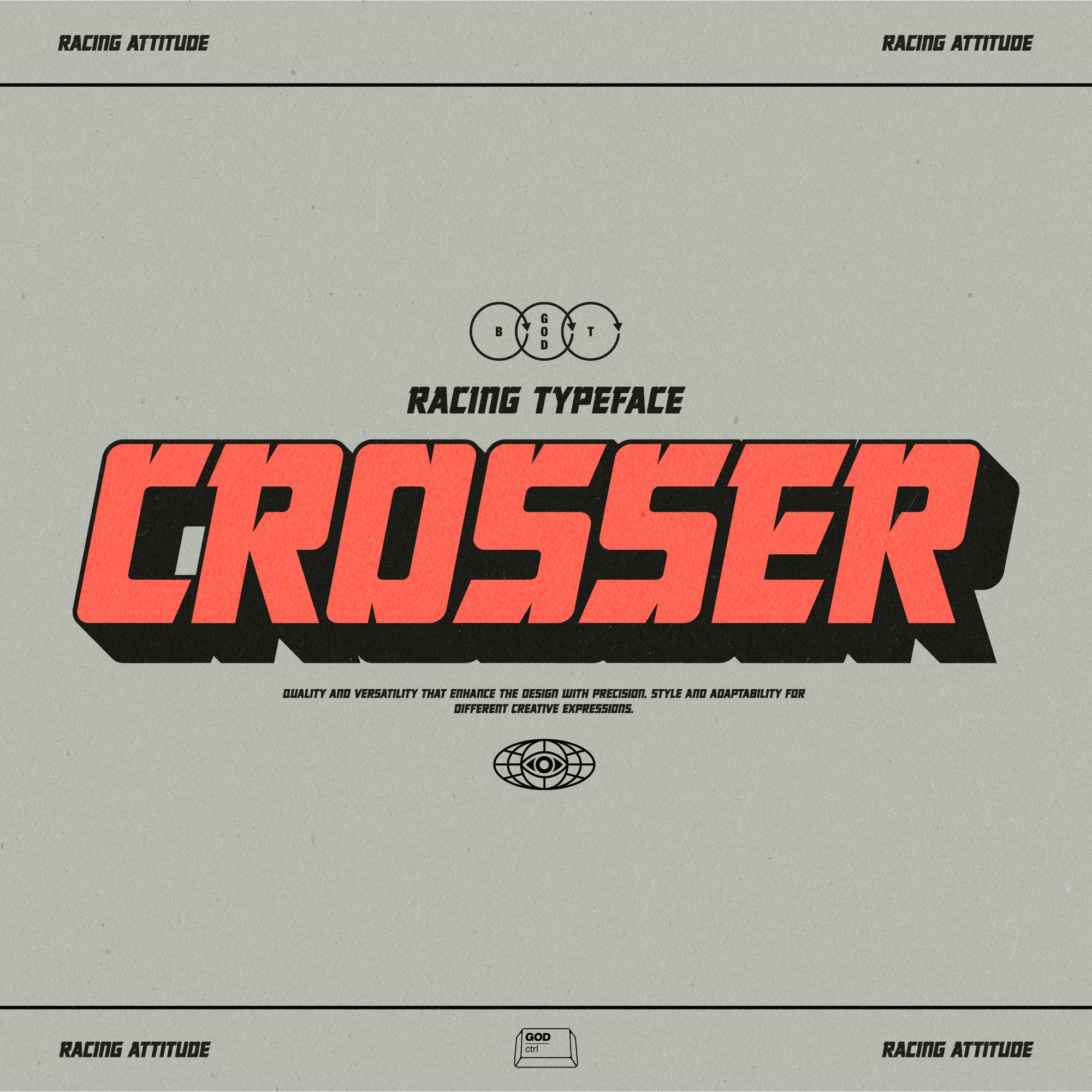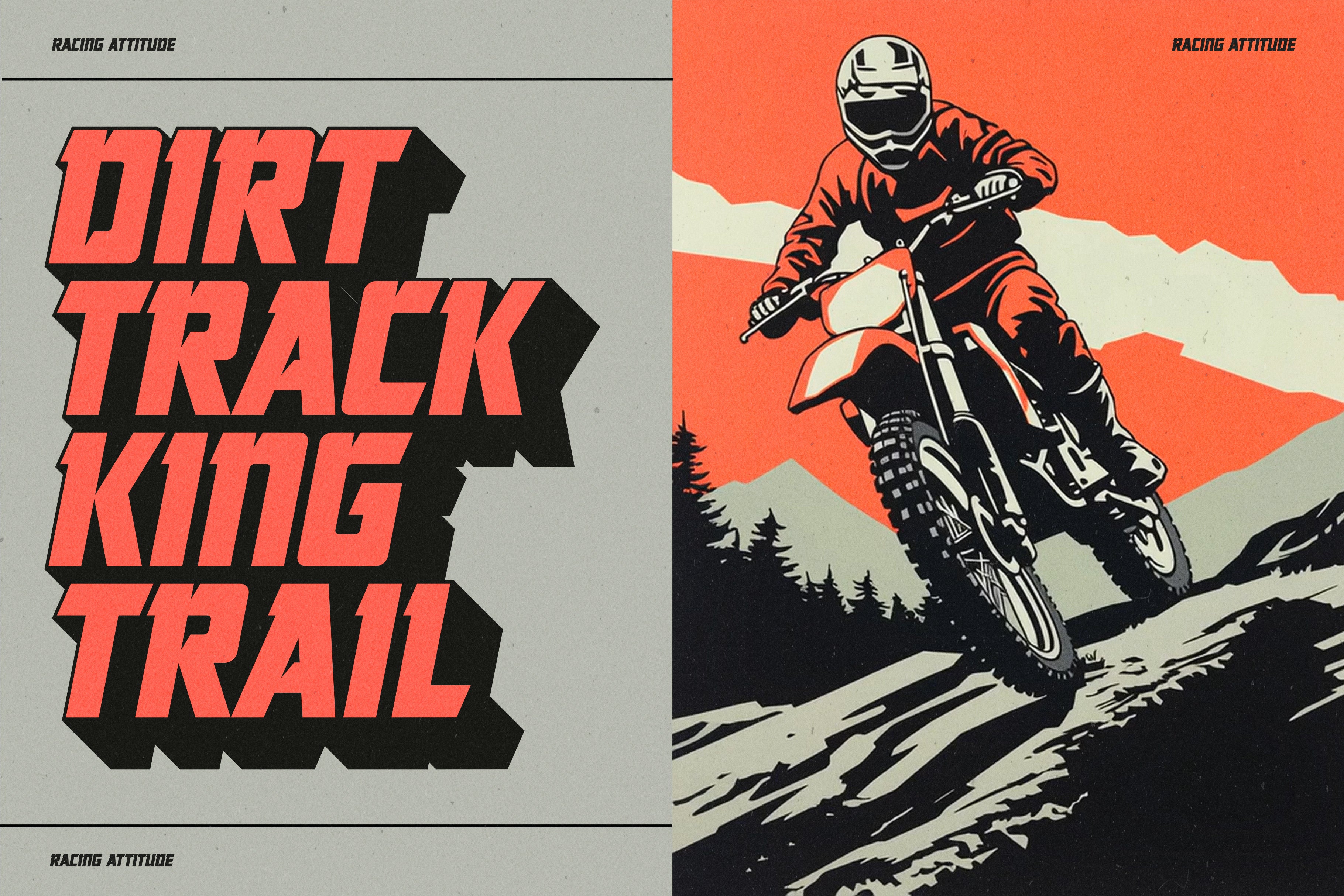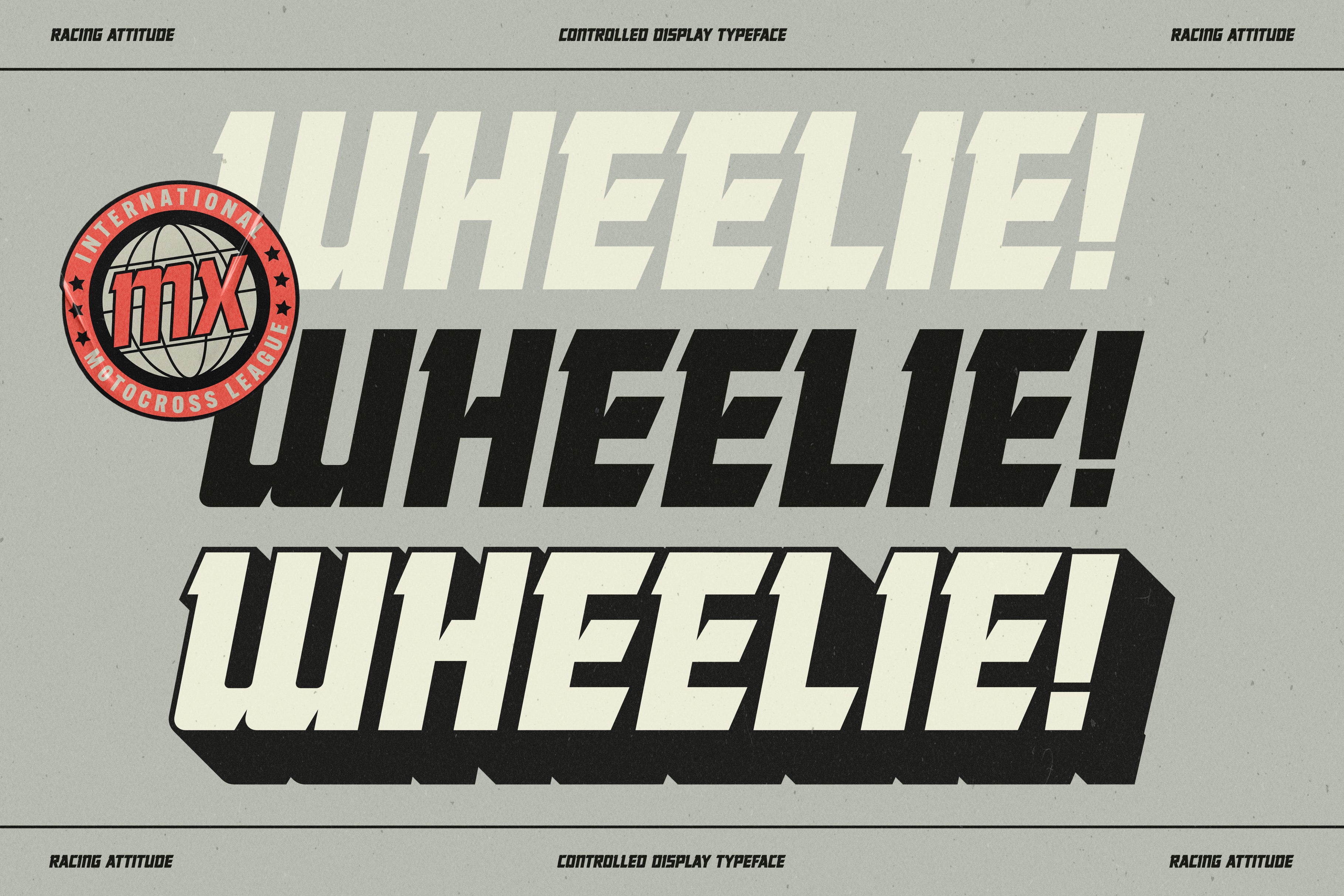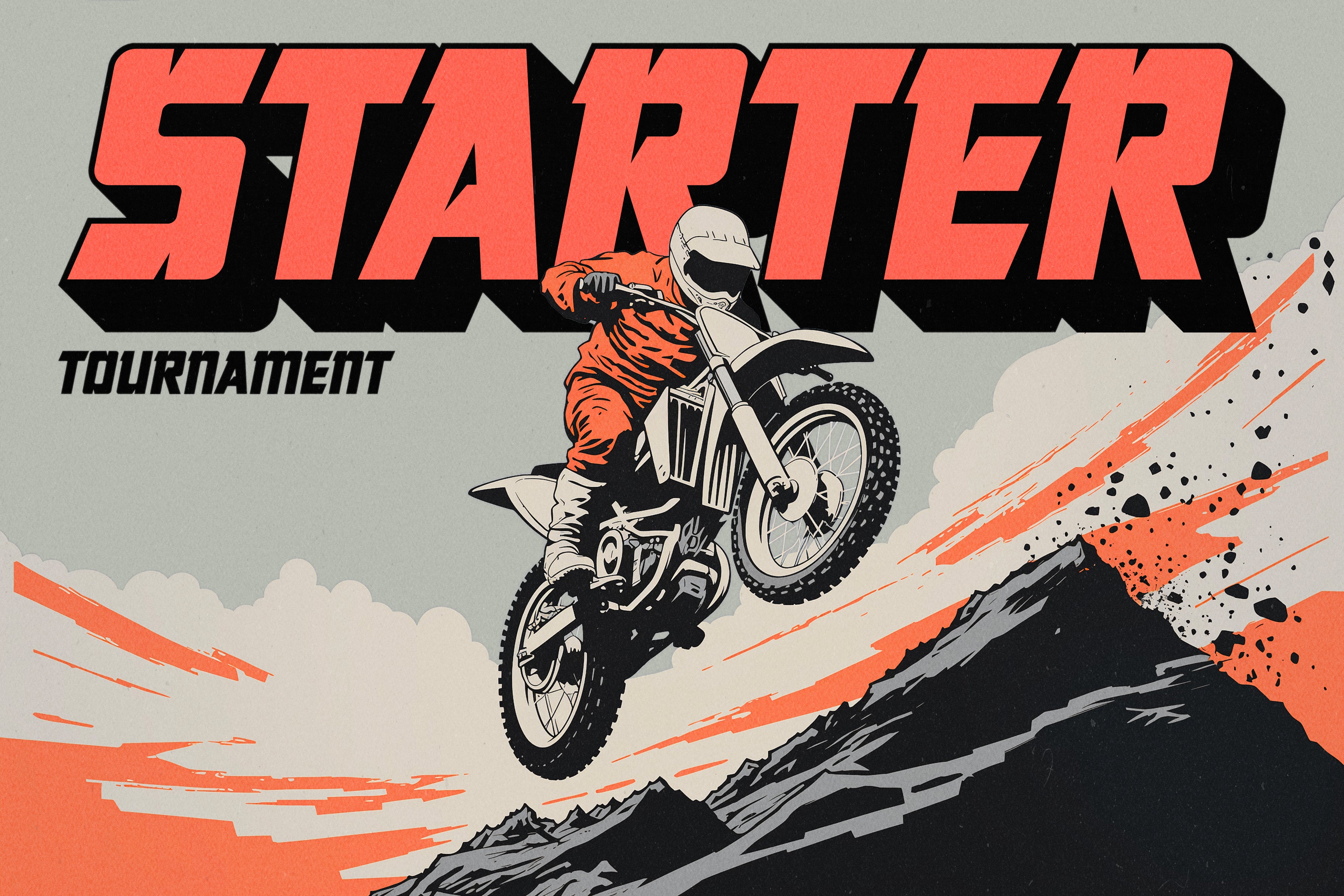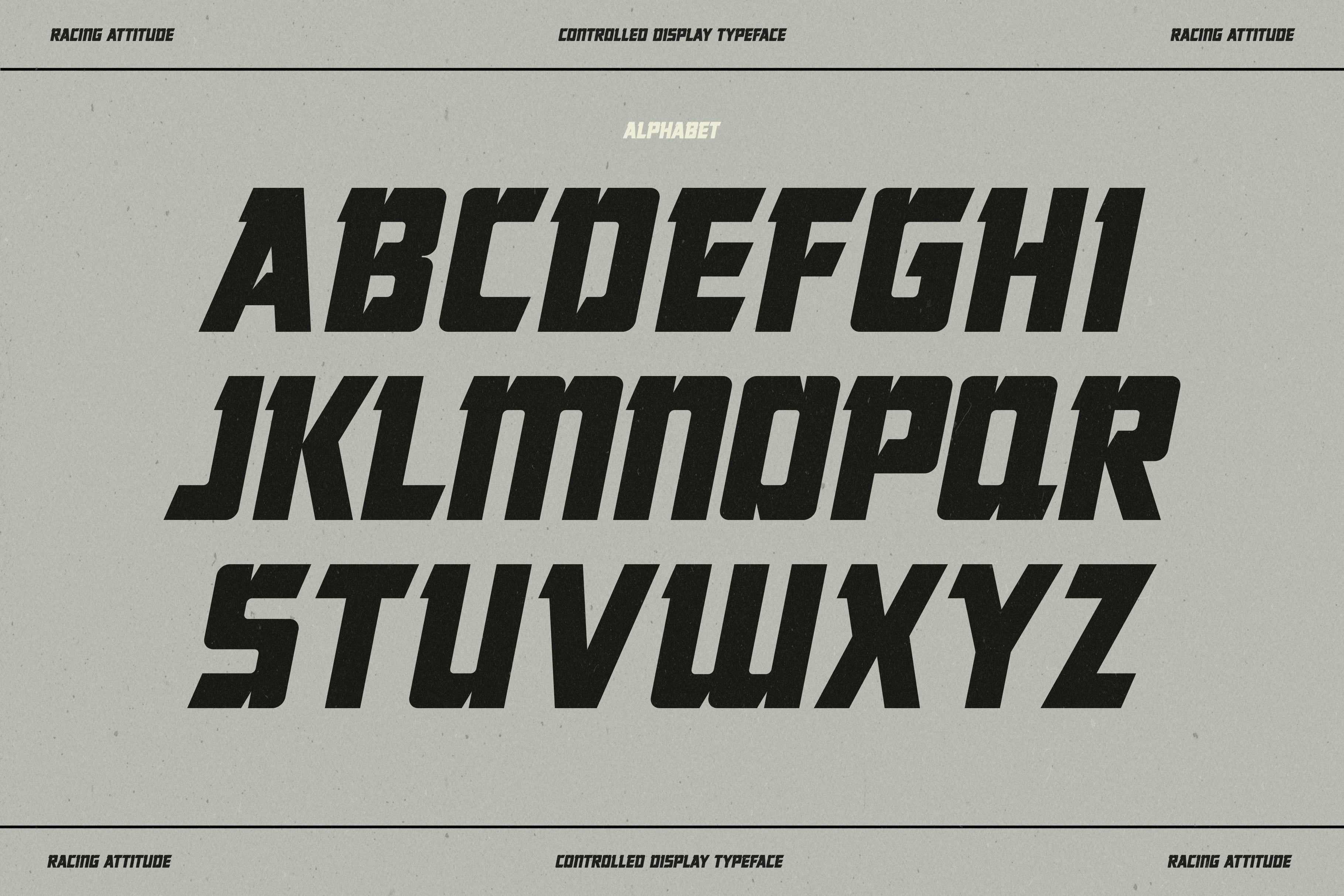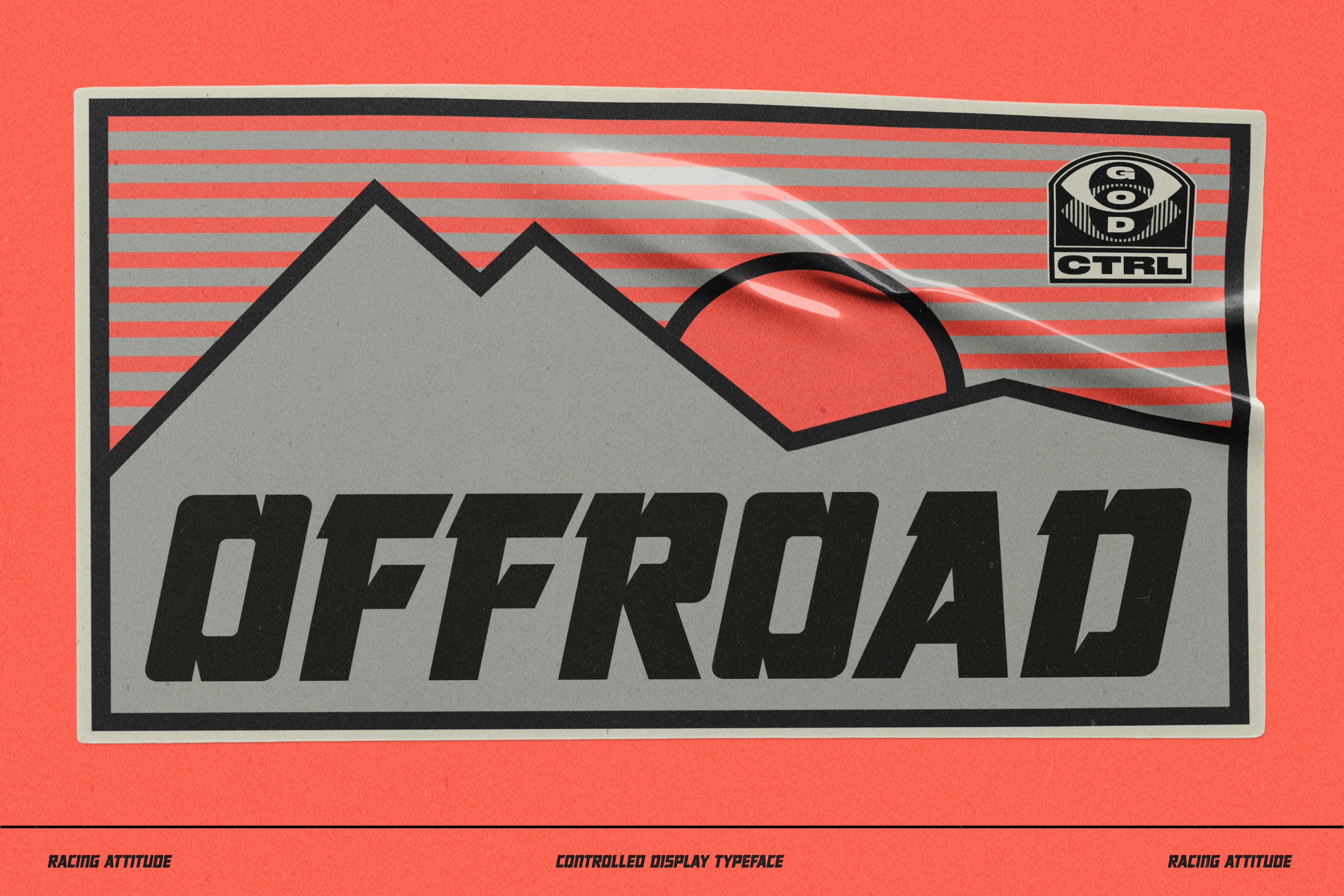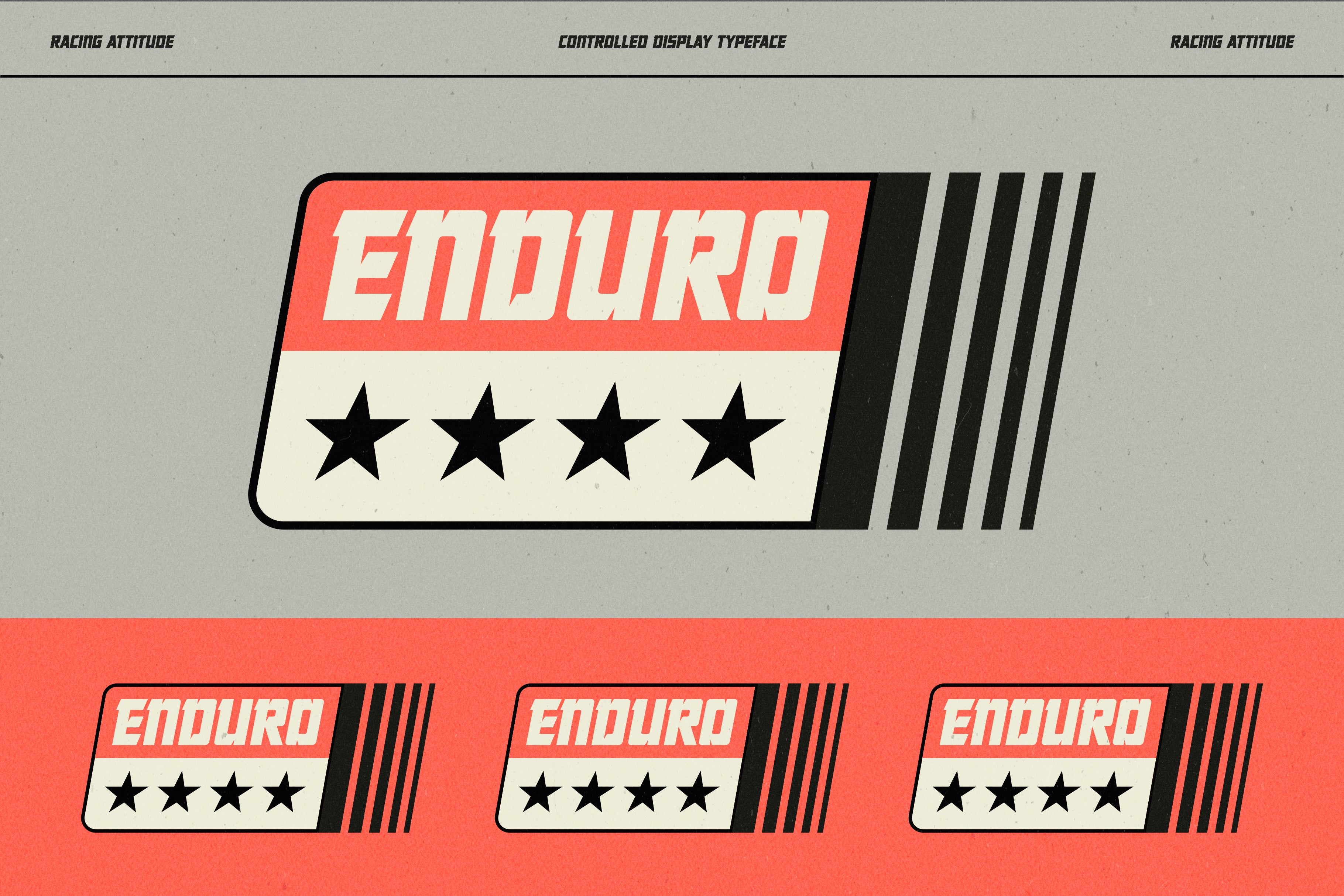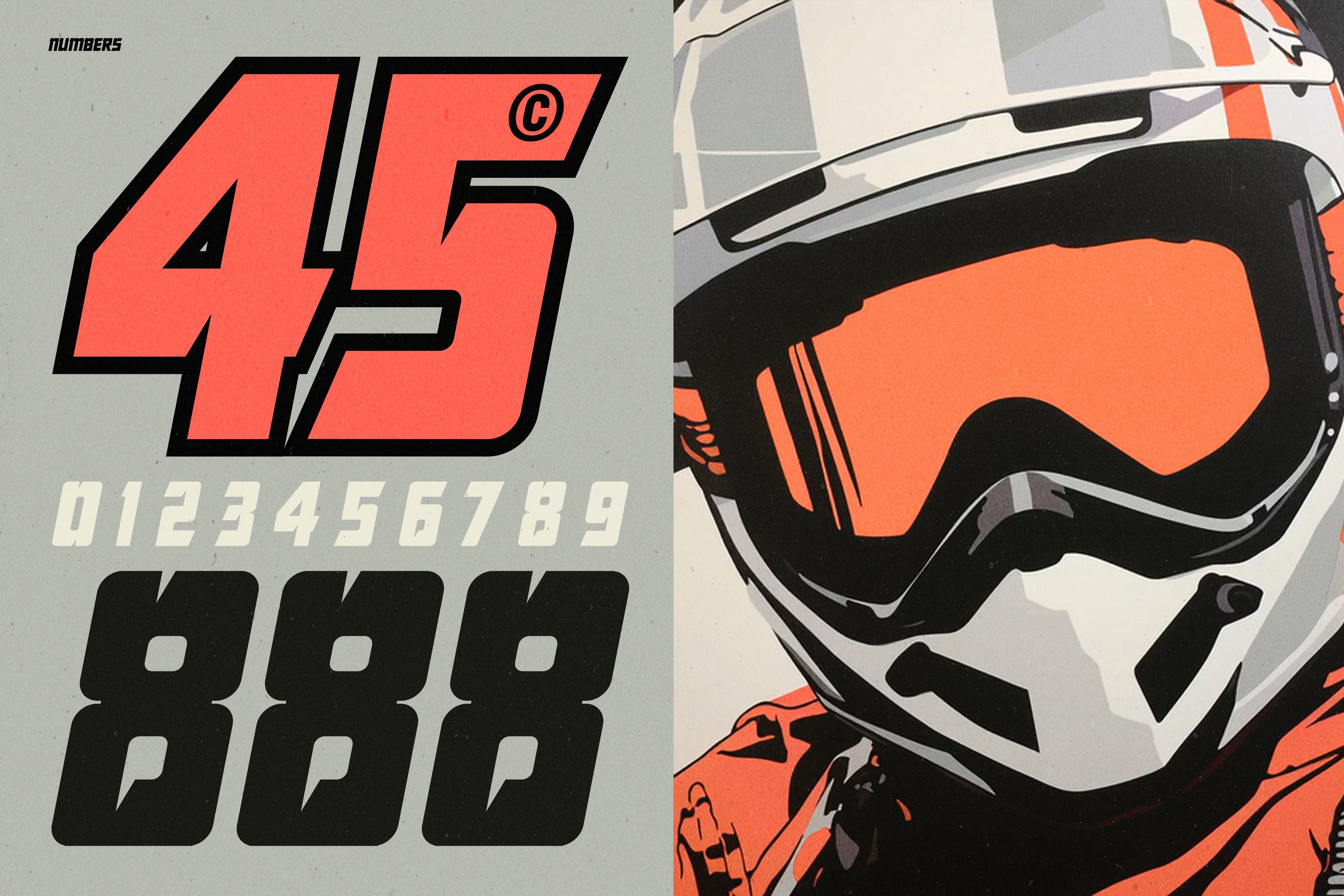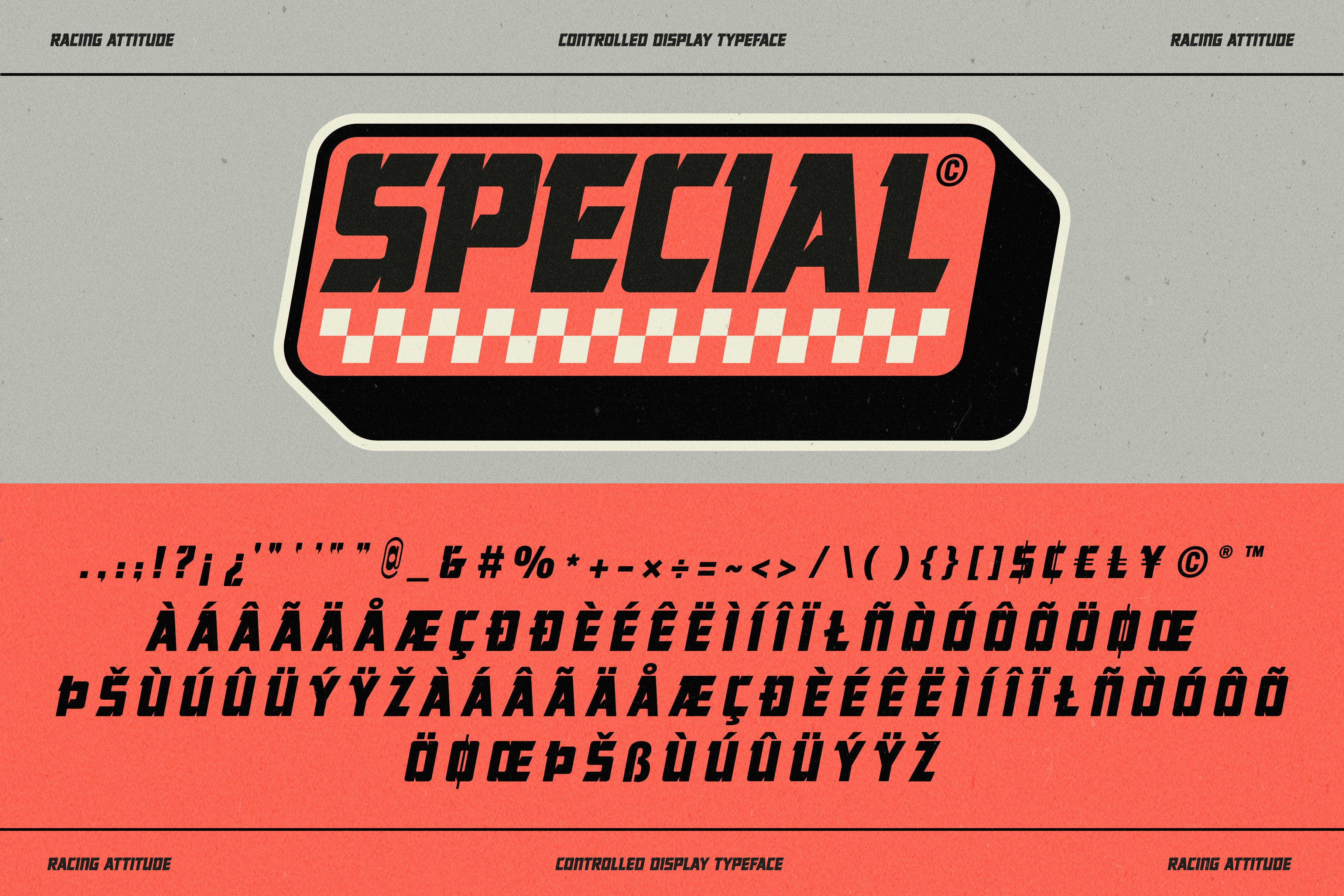
Crosser Display Typeface
Crosser Display Typeface is a bold display font featuring geometric shapes and a retro aesthetic, designed with 215 characters, including special characters and punctuation. It is built for clarity and control, making it suitable for various design applications.